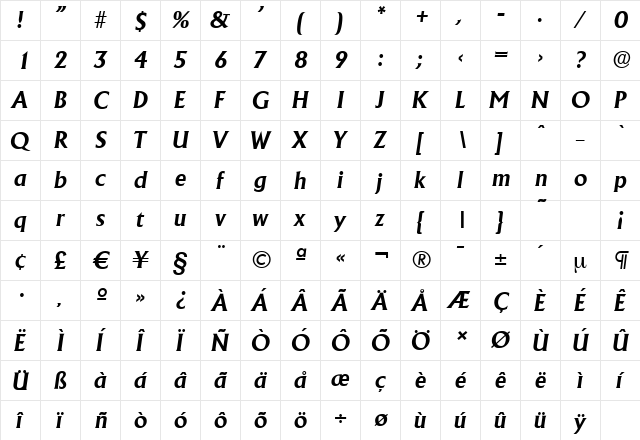
AdelonSerial BoldItalic
Design Context for AdelonSerial Typeface
AdelonSerial takes a measured approach to typography — its balanced proportions and neutral character make it a reliable workhorse for both digital and print work. The slanted form adds forward momentum and visual energy. The heavy weight commands attention and anchors typographic hierarchies.
Pro Tip: Use AdelonSerial for emphasis, pull quotes, and subheadings where its slanted energy can add rhythm to the layout.